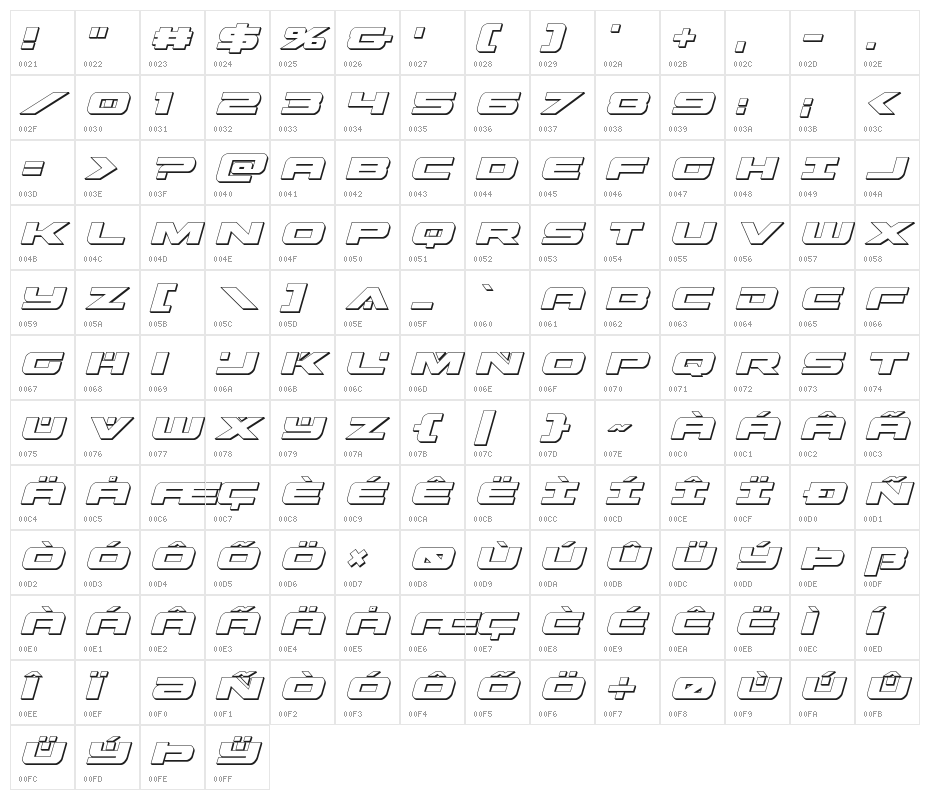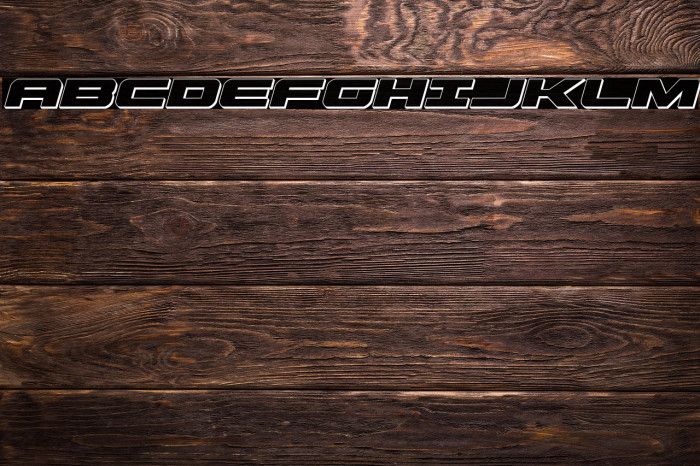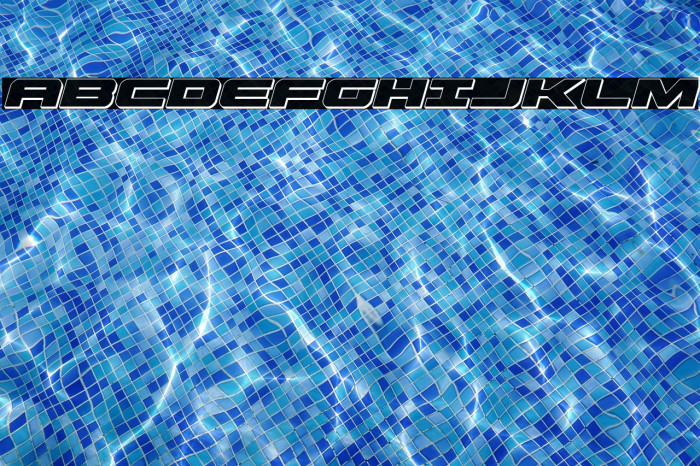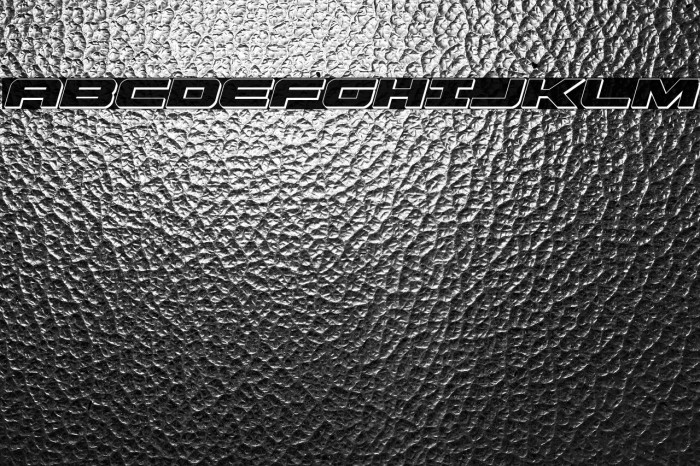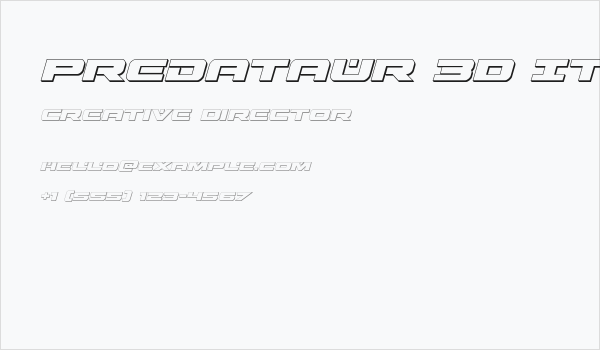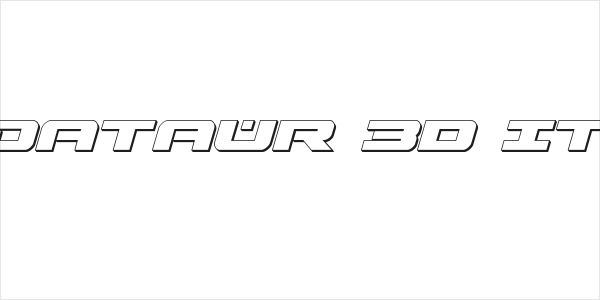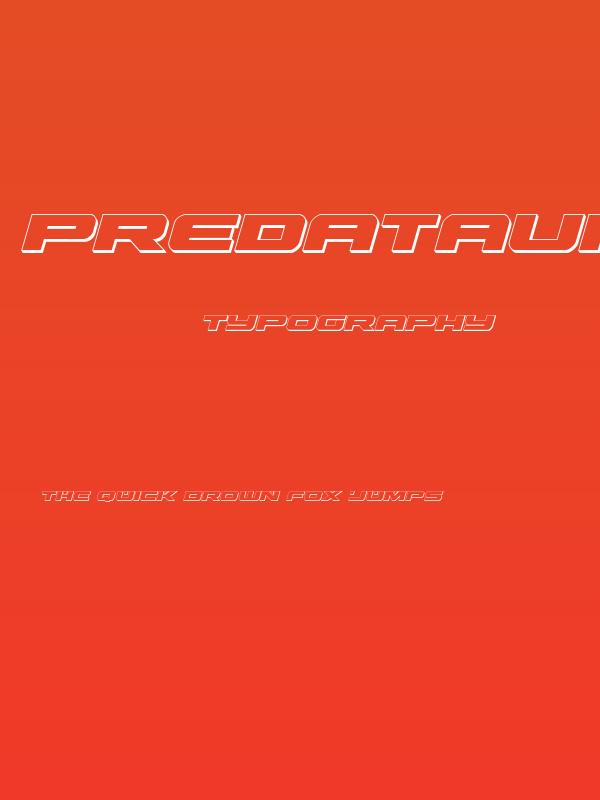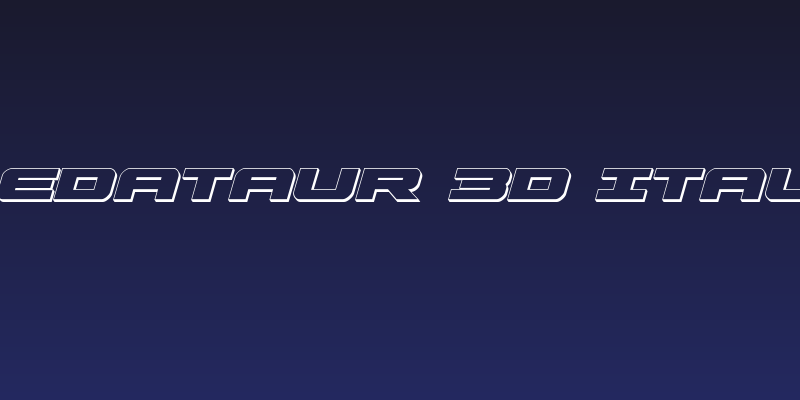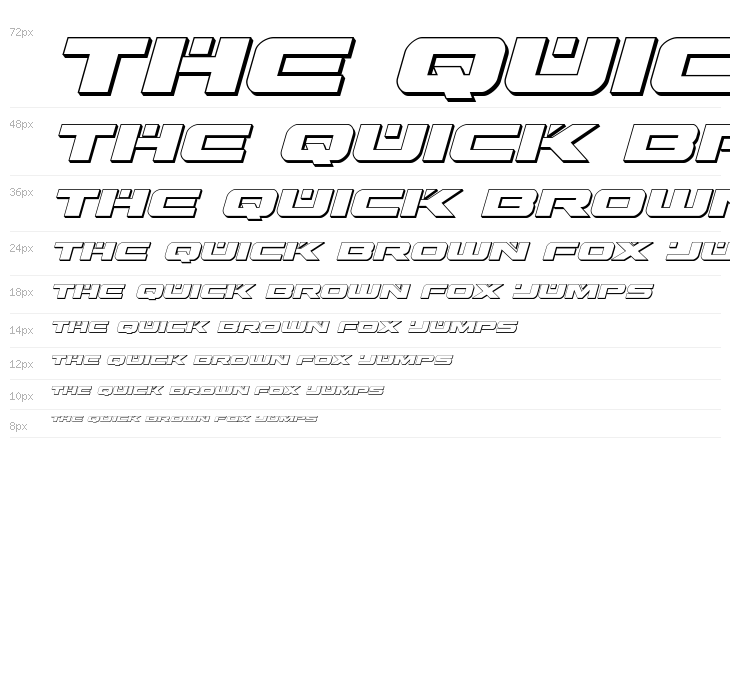
Predataur 3D Italic Font
Predataur 3D Italic Description
This font features a bold, futuristic design with a three-dimensional appearance. The characters are outlined, giving them a hollow look that enhances the 3D effect. Each letter is slightly italicized, adding a sense of motion and dynamism. The font has a geometric structure with sharp angles and clean lines, making it ideal for modern and tech-oriented designs. The uppercase and lowercase letters maintain a consistent style, while the numbers and special characters complement the overall aesthetic. This font is perfect for projects that require a bold and eye-catching display.
| Proposed Projects | Ideal for tech branding, video game titles, sci-fi posters, and futuristic-themed designs. |